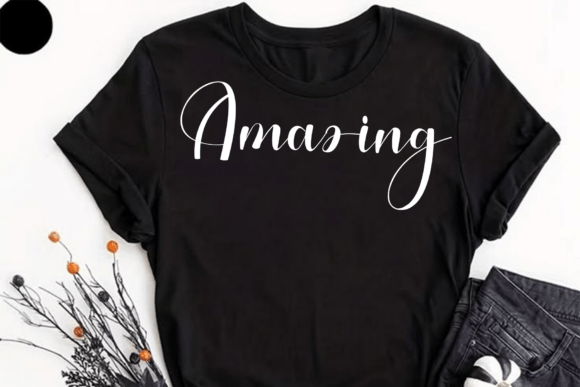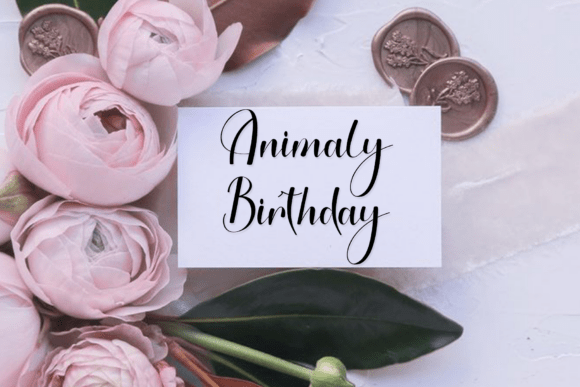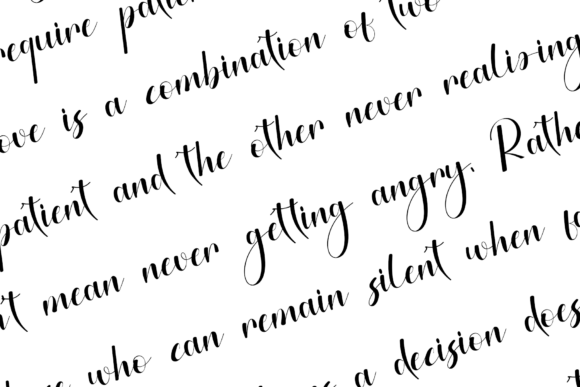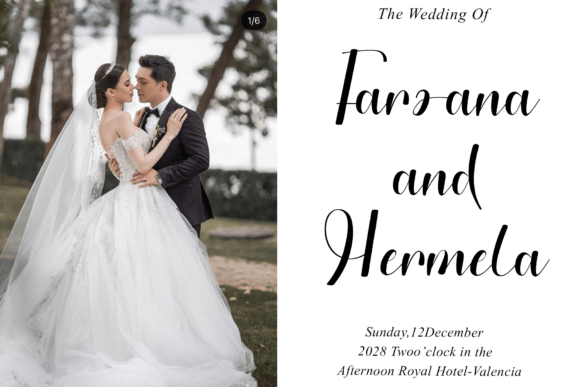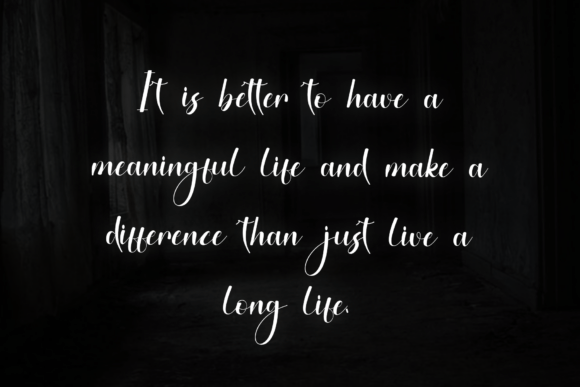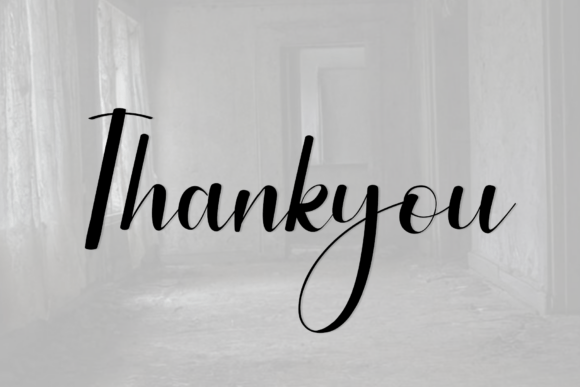
Unleash the Elegance: A Comprehensive Guide to Haunting Font
In the world of typography, few fonts manage to evoke the sense of sophistication and luxury that Haunting Font embodies. This beautifully flowing and elegant modern handwritten script font has been making waves in the design community, and for good reason. Its smooth, generous curves and graceful, elongated strokes give it a signature look that’s hard to ignore. In this article, we’ll dive into the world of Haunting Font, exploring its features, uses, and benefits for designers and crafters alike.
Aesthetics and Features
Haunting Font is a masterclass in elegant typography. Its flowing curves and refined strokes create a sense of movement and fluidity, perfect for designs that require a touch of sophistication. The font’s generous curves and elongated strokes give it a luxurious feel, making it ideal for projects that demand a high-end look. Whether you’re working on personal branding, photography watermarks, or luxury wedding stationery, Haunting Font is sure to impress.
Some of the key features of Haunting Font include:
- Smooth, flowing curves for a luxurious feel
- Graceful, elongated strokes for added elegance
- Unique and professional typeface for standout designs
- Perfect for personal branding, photography watermarks, and luxury wedding stationery
Uses and Applications
Haunting Font is a versatile typeface with a wide range of applications. Here are some of the most popular uses for this stunning font:
- Personal Branding: Establish your brand identity with a sophisticated and elegant font that exudes professionalism and style.
- Photography Watermarks: Add a touch of luxury to your photography watermarks with a font that’s both elegant and understated.
- Luxury Wedding Stationery: Create stunning wedding invitations, programs, and other stationery with a font that’s sure to impress.
- Editorial Design: Use Haunting Font to add a touch of sophistication to your editorial designs, from magazine covers to article headers.
Haunting Font offers a range of benefits for designers and crafters, including:
- Unique and Standout Designs: With Haunting Font, you can create designs that stand out from the crowd and leave a lasting impression.
- Ease of Use: This font is easy to read and works beautifully in a variety of contexts, from digital designs to print materials.
- Time-Saving: Haunting Font is a versatile typeface that can be used across multiple projects, saving you time and effort in the long run.
- Luxurious Feel: Add a touch of luxury to your designs with a font that’s both elegant and sophisticated.
Tips and Tricks for Working with Haunting Font
To get the most out of Haunting Font, here are some tips and tricks to keep in mind:
- Experiment with Font Sizes: Haunting Font works beautifully at a range of font sizes, from large headings to smaller body text.
- Pair with Complementary Fonts: Combine Haunting Font with complementary fonts to create stunning contrast and visual interest.
- Use in Combination with Images: Haunting Font works beautifully in combination with images, adding a touch of elegance and sophistication to your designs.
Haunting Font is a beautifully elegant and sophisticated typeface that’s perfect for designers and crafters looking to add a touch of luxury to their designs. With its smooth curves, generous strokes, and unique character, this font is sure to impress. Whether you’re working on personal branding, photography watermarks, luxury wedding stationery, or editorial design, Haunting Font is a versatile and stunning choice. So why wait? Unleash the elegance of Haunting Font in your designs today!